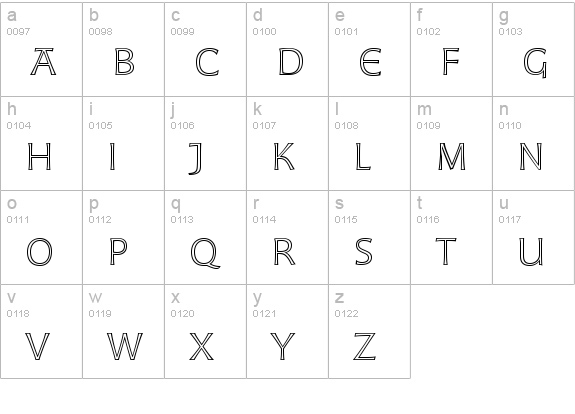
Moonglow Light Extended is a refined, elegant, extended-width variant in the Moonglow typeface family \xE2\x80\x94 well suited to elegant body text, refined sub-headings, and luxury branding.
Moonglow Light Extended font is a stylish and elegant typeface that exudes sophistication and grace. With its slender and elongated letterforms, this font is perfect for adding a touch of modernity to any design project. The Moonglow Light Extended font is ideal for a wide range of applications, from branding and advertising to editorial design and packaging. What makes Moonglow Light Extended font even more appealing is that it is available for free download at FontsMarket.com. This means that you can easily access this exquisite font without any cost, making it a fantastic choice for designers looking to elevate their work without breaking the bank. Don't miss out on the opportunity to enhance your projects with the Moonglow Light Extended font - download it for free today at FontsMarket.com!